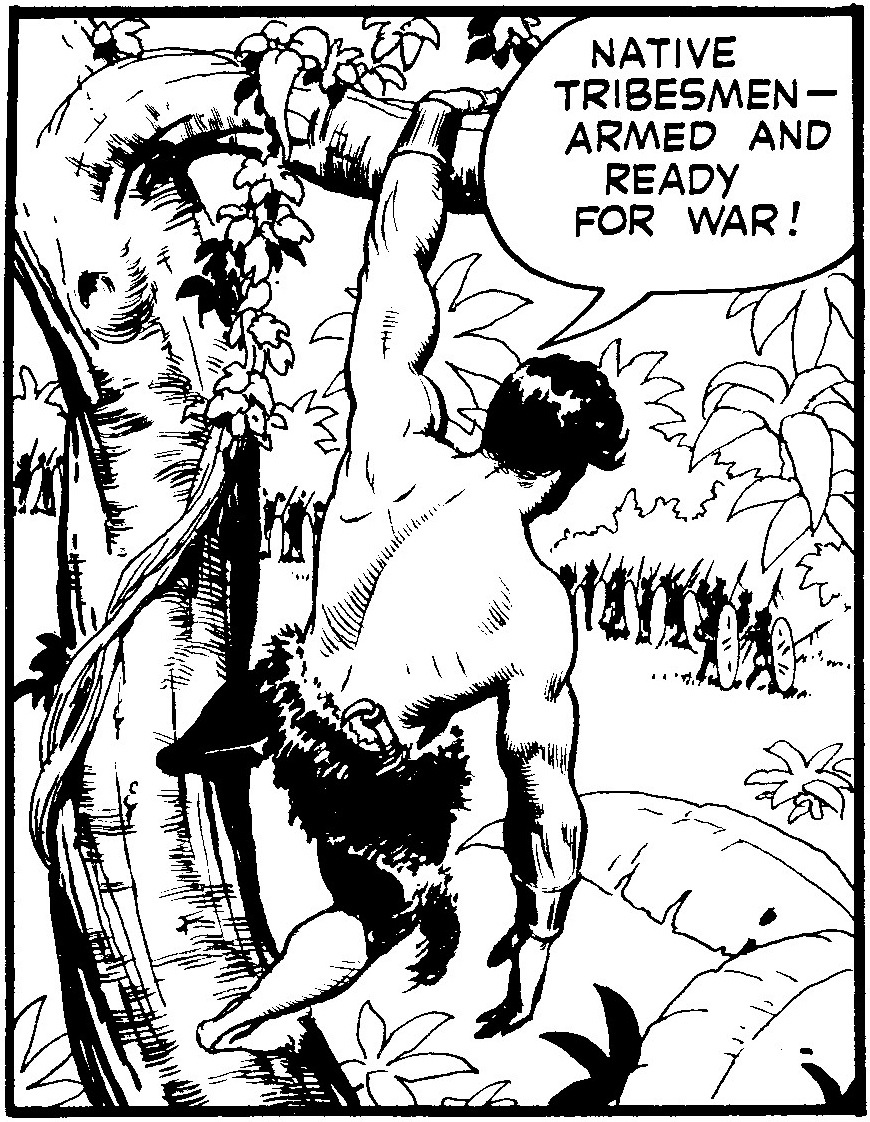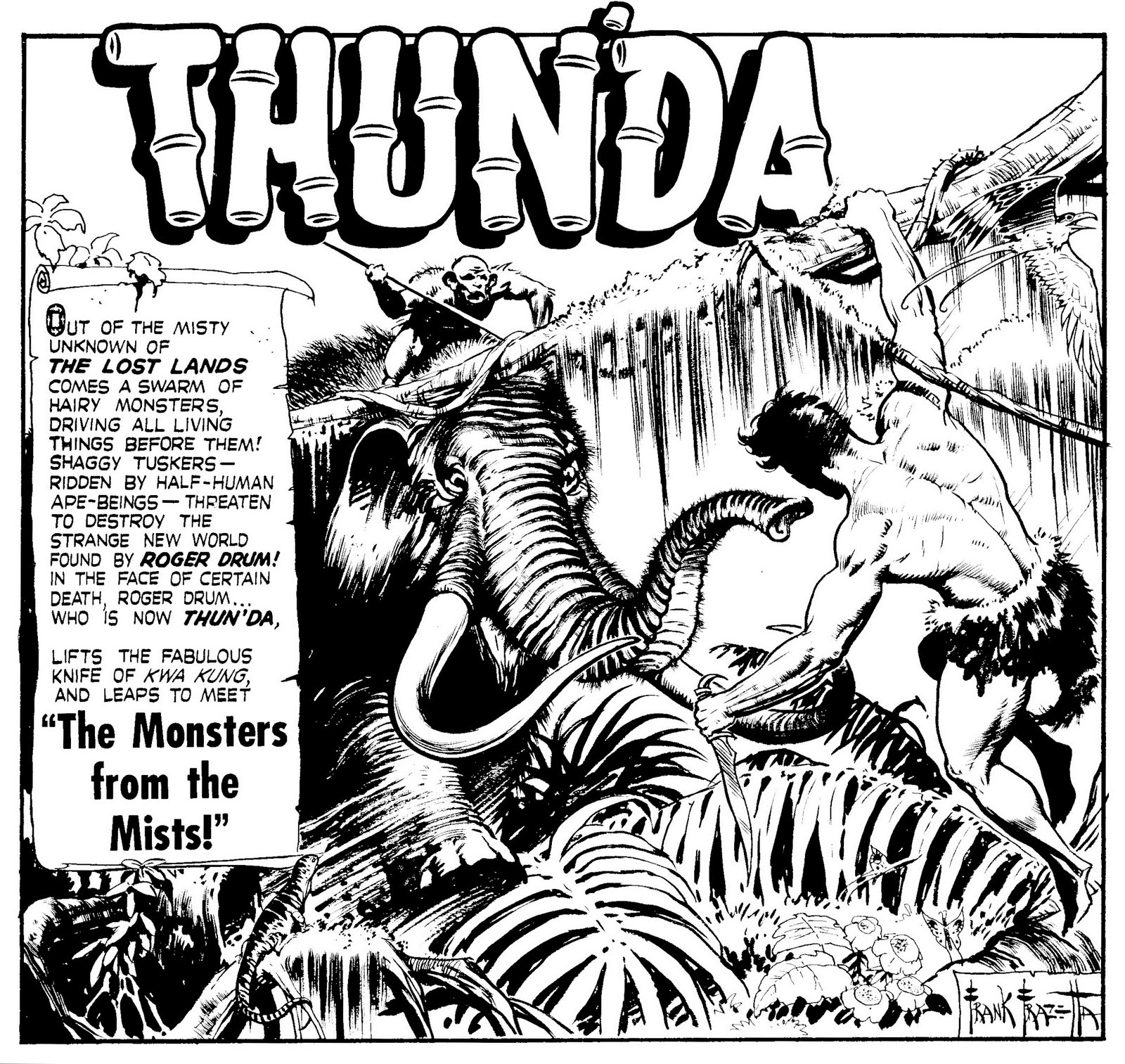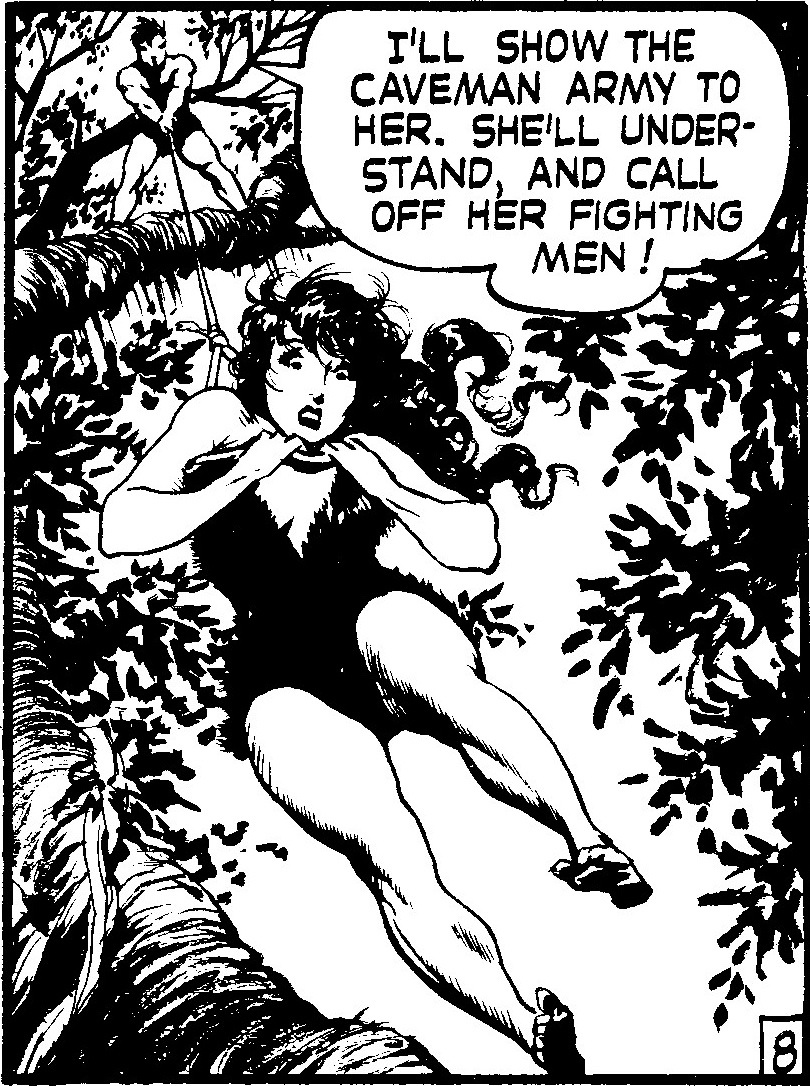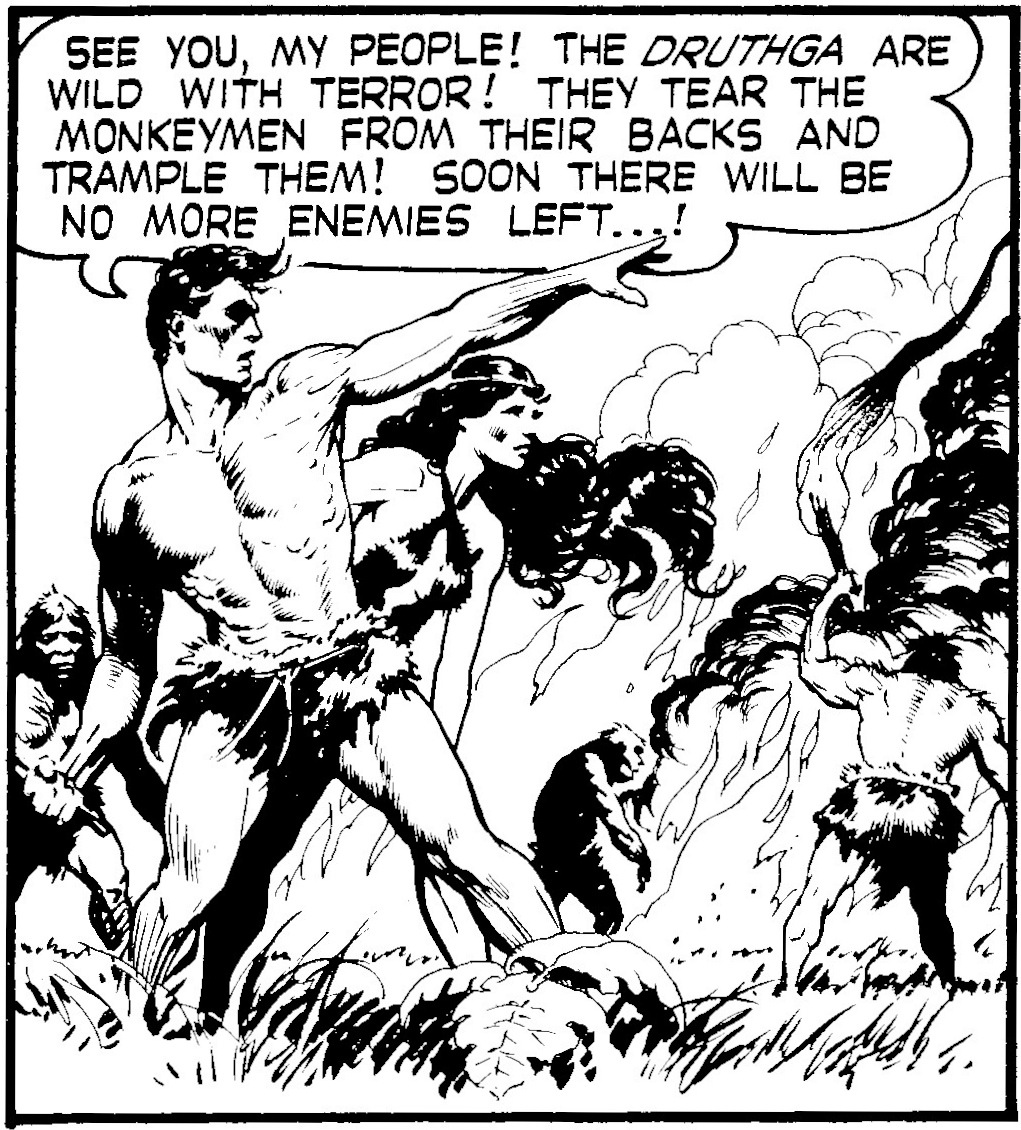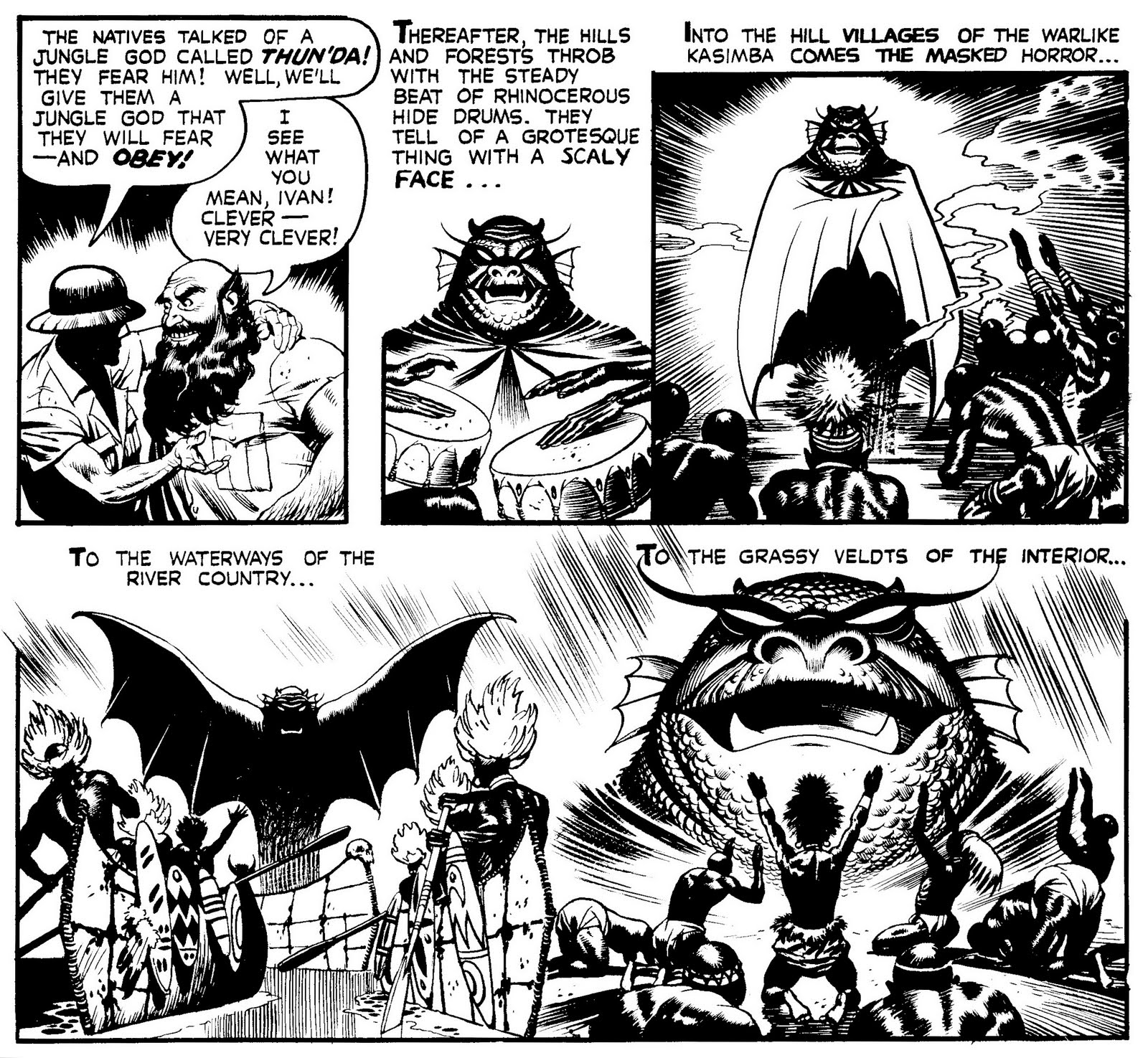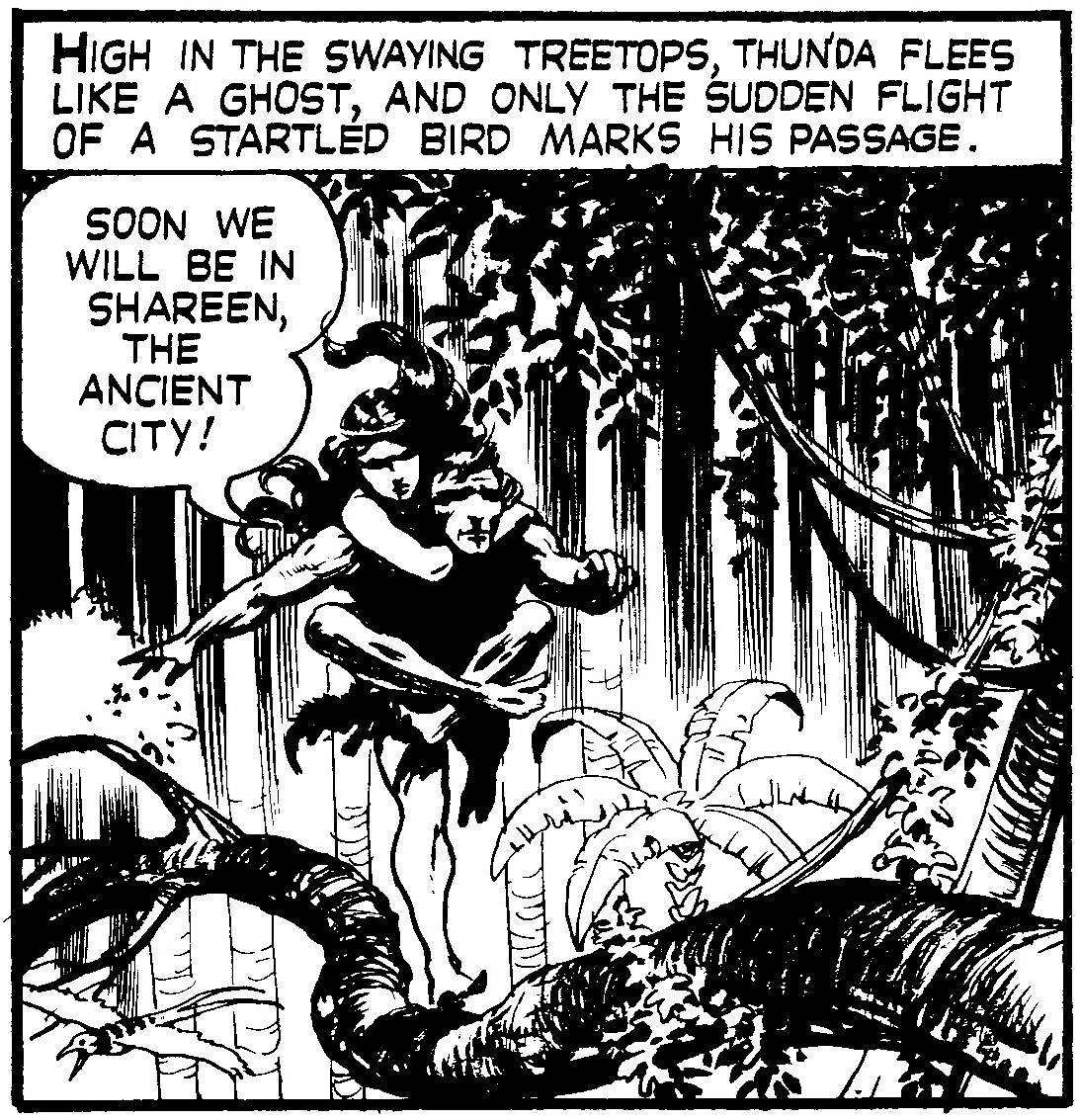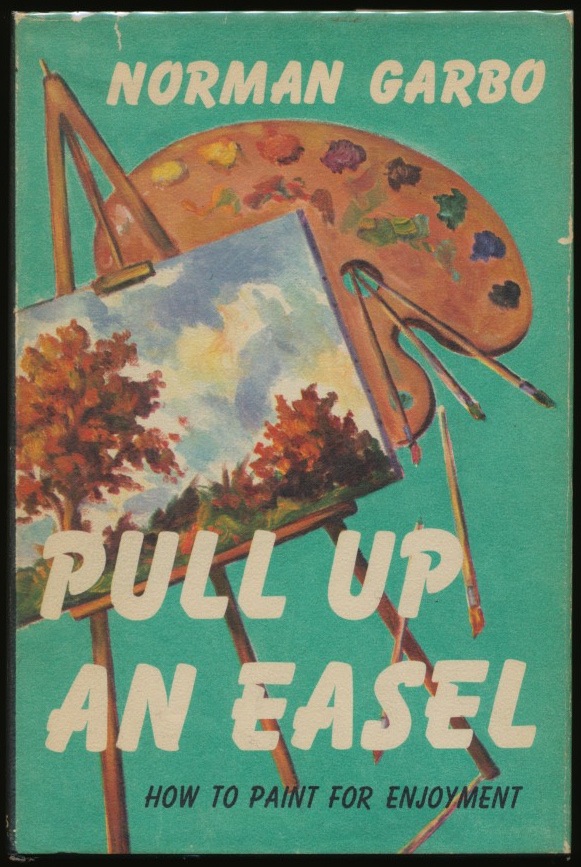
Creator: Reed Crandall
The story of how Reed Crandall was able to attend the Cleveland School of Art is told in the following article from The Santa Fe Magazine, August 1935.
Exceptional Newton, Kan., Art Student Wins High Honors in National Art Department Contest
By Vincent C. Root
Master Mechanic’s Office, Newton, Kan.
Newton, and all Kansas, in fact, should be mighty proud of one of its studious and artistic sons, Reed Crandall, senior in the Newton high school, who recently won six separate awards in a contest sponsored by the Scholastic, a weekly high school magazine. Crandall being the only student this year out of a group of 10,000 to win honors from all the states west of the Mississippi. So far as is known, Crandall is the only student from Kansas to have ever won distinction in this yearly contest in art.
Newton, enrolling only in one department of the contest—the art department—entered six different groups of the work of Crandall, 18 years old, and emerged from the contest very much a winner.
Crandall entered three pieces of sculpture in plastic wood. One of these, which won for him second place, was a model of a newsboy selling his papers. His second entry was a plastic wood model of a runner, and the third was a model of a pirate, depicting Long John Silver of Treasure Island. In addition to winning the high honors in plastic wood modeling, this young artist won a cash prize in oil painting and three places of honorable mention in pictorial arts division, black inks division and the oils division. Not only did his individual pieces win distinction but his group as a whole was outstanding in the pictorial arts division, also winning honors in this department.
This honor won by Reed Crandall is even more impressive when one considers that half a million high school students during the past year have turned their efforts toward winning these honors, and of this vast number only 10,000 survived the preliminary eliminations, which were conducted in their individual cities by judges selected from the teaching staff.
The jury, consisting of Audrey Avinoff, director of Carnegie Museum; Royal B. Farnum, director of the Rhode Island School of Design; C. Valentine Kirby, director of art in Pennsylvania schools; Alfred Pelikan, director of Milwaukee Art Institute; W.A. Readio, chairman, department of painting and design, Carnegie Institute of Techology [sic], and Dudley Crafts Watson, Chicago Art Institute. This group distributed eighteen scholarships and 215 prizes to excelling students scattered widely over the entire United States.
The work of Crandall now is at the International High School Art Exhibit in the Fine Arts Galleries of Carnegie Institute, Pittsburgh, Pa., the American division of which is made up entirely of work submitted for the scholastic awards. Seven nations are represented in this show, which will be released for a tour of the entire country upon completion of its engagement at Carnegie.
The main award won by Crandall for his exhibit is a scholarship in the Cleveland School of Art, beginning next September, which he is planning to enter next fall.
Reed is an exceptional student in school, and in addition to excelling in art is a prize pupil in typewriting, having recently won distinction by typing for ten minutes without making a single mistake. Miss Marie Orr, art instructor in our Newton schools, has been Reed's only instructor, and she is past president and past secretary of the State Art Teachers’ Association, which organization she was very active in bringing into existence.
Miss Orr has been active in Newton schools for the past fifteen years, having been art instructor during this long period, and due to her outstanding ability she has turned out of our Newton schools many very brilliant students of art as well as winning for herself high acclaim in this field and taking part in the various organizations for the advancement of art in this state.
Crandall is a cousin of Harrison Crandall of Boise and Jackson Hole, Idaho, who is nationally known as painter of Tetone mountain country scenes. His parents are Mr. and Mrs. Rayburn Crandall of Newton. Newton is mighty proud of Reed and we trust all Kansas is equally proud of him for bringing high honors in art to our city and state, and we wish him the greatest measure of success in his profession in the years to come.
(Crandall’s birthday is February 22. Below are links to additional information about Crandall and images of his work. Next post on Monday)
Anatomy of a Logo: Spirits of Vengeance: Ghost Rider/Blaze
The movie Ghost Rider: Spirit of Vengeance opens February 17. The title is based on the comic bookSpirits of Vengeance: Ghost Rider / Blaze, published by Marvel Comics. Bobbie Chase was the editor of the comic and related titles. Spirits of Vengeance #1 was part two of "Rise of the Midnight Sons" a six-part crossover with these titles: Ghost Rider #28, Part 1; Morbius #1, Part 3; Darkhold #1, Part 4; Nightstalkers#1, Part 5; and Ghost Rider #31, Part 6. I was designed with the crossover title, Rise of the Midnight Sons, and the logos except for Ghost Rider.
On August 19, 1991, I met with Bobbie and she offered the logos to me. On September 6, my initial Spirits of Vengeance designs were rejected. Bobbie suggested a more fluid approach, like brushstrokes.
On September 15, I used a crayon pencil to rough out "Ghost Rider/Blaze" and "Spirits of Vengeance".
Then I used a felt-tip marker to draw the letters.
An outline version was made.
I combined the two groups into the logo. On September 16, I faxed the revised logo to Bobbie and she approved it.
About a week later, I enlarged the photocopy then added some guide lines. The photocopy was taped to a light box and a sheet of LetraMax 2000 was placed on top of it.
I used a variety of Rapidograph pens to ink the letters. Also used were a french curve and ellipse guides. The flames and outline were inked freehand. The finished art was delivered September 23.
Logo measures 7.875 by 14.5 inches / 20 by 36.8 centimeters
The comic book was released in Spring 1992. What I saw wasn't the logo I had drawn. A decision was made to redo my logo so it resembled the the Ghost Rider logo. The basic design of my logo was used, but the "S" was widen and its top stroke enlarged and extended so "Ghost Rider & Blaze" could fit inside. Then "of" was reduced and the vertical stroke of the "F" was separated from the vertical stroke of the "N". Despite the changes, the logo worked very well.
(Next post Monday: Reed Crandall)
Thursday, February 9, 2012
Street Scene: Frank Frazetta's High School
• N E W Y O R K C I T Y •
Abraham Lincoln High School
2800 Ocean Parkway, Brooklyn
Main entrance
Plaque in entrance stairway
Brooklyn Daily Eagle,
December 11, 1944;
see sub-head,
“Something Modern”
Frank Frazetta was born on February 9, 1928. Part one of Armand Eisen’s interview with Frazetta was published in Ariel magazine, Autumn 1976. When asked the question, Was there any single art teacher whom you particularly admired or became close to or who influenced you?, Frazetta answered:
There was one outstanding man who really, really gave me incentive. He seemed to know how to get to me. Others had just the opposite approach. They felt, keep him down so he will fight and strive for better things. Right? His attitude was, tell him he’s great—in other words, make him happy and he will perform. And that really worked with me, in art. And you get those who try to push you down, and you come up just to show them—and they say “He’s great!” You are trying to show both sides that you are great. Whether it is in sports or in art, you’ve got to convince the non-believers and confirm the believers. That sort of thing. It is a marvelous feeling. That is what life is all about.
...By the way, what was the name of that art teacher?
Grubman.
Where did he teach?
He taught in Abraham Lincoln High School.
And how old were you when he was your teacher?
I was in my teens, oh, 15 or 16. He was very encouraging. You know, he just made me feel important.
Do you think that had any influence at all on your work?
Well, no influence on my work, none whatsoever. It was simply that I was going my way no matter who came along and he simply made my life more pleasant and just reaffirmed what was in my own heart, that I was good. I had it.
••••••••
A copy of Frazetta’s high school transcript is here.
••••••••
Paul Grubman was born in Brooklyn, New York on August 11, 1898, according to the Social Security Death Index. In the 1900 U.S. Federal Census, he was the youngest of eight children born to Joseph and Flora, both Russian emigrants. They lived in Brooklyn at 24 Osborn. His father was a machinist.
In the 1910 census, Grubman, his parents and three siblings lived in Brooklyn at 1623 Eastern Parkway. His father was an optician. He graduated from Manual Training High School on June 28, 1917, as reported in the Brooklyn Daily Eagle on June 29. He signed his World War I draft card on September 10, 1918. He lived at 1672 Union Street in Brooklyn and worked as a machine helper.
Grubman has not been found in the 1920 census. The Eagle reported, on September 26, 1922, that he was licensed to teach textile design at the evening high schools. He lived in Belle Harbor, Long Island at 238 North 132 Street.
Brooklyn Daily Eagle,
September 26, 1922;
see last two lines.
He has not been found in the 1930 census. In July 1933 he was licensed to teach freehand drawing in high school, according to the Eagle, July 1, 1933. On November 27, 1934, the Eagle reported his appointment to Abraham Lincoln High School; he had been a substitute teacher.
Brooklyn Daily Eagle,
July 1, 1933
Brooklyn Daily Eagle,
November 27, 1934
Grubman passed away in May 1984 in Brooklyn, according to the Social Security Death Index. He was buried on June 4 in Green-Wood Cemetery.
(Frazetta's baseball days; Street Scene post on Monday)
Tuesday, February 7, 2012
Street Scene: The Charles Dickens House Museum
• L O N D O N •
48 Doughty Street (link)
February 7, 2012 is the 200th birthday of Charles Dickens.
(Next post on Thursday: Frank Frazetta's High School)
Monday, February 6, 2012
Creator: Hal Foster
Hal Foster's Influence on Frank Frazetta
Hal Foster's Tarzan daily comic strips, from January and February 1929, were reprinted as a book, The Illustrated Tarzan Book #1, published by Grosset & Dunlap in 1929. The book can be viewed at Golden Age Comic Book Stories. Frank Frazetta's art was in the first issue of Thun'da, King of the Congo, which was published in 1952.
Select panels from Tarzan and Prince Valiant are followed by panels from either Thun'da or Frazetta book covers. The panels show either similar compositions or concepts.
HANGING ON A BRANCH
Tarzan, daily 30
Tarzan and the Lost Empire
Thun'da, Gods of the Jungle, page 6
Tarzan, daily 21
Tarzan, daily 26
Tarzan, daily 43
Thun'da, Monsters from the Mists, page 1
Tarzan, daily 37
Thun'da, King of the Lost Lands, page 6
WALKING ON A BRANCH
Tarzan, daily 37
Thun'da, Monsters from the Mists, page 6
POINTING
Tarzan, daily 25
Tarzan, daily 47
Thun'da, Monsters from the Mists, page 7
LASSOED
Tarzan, daily 26
Thun'da, King of the Lost Lands, page 8
FIGHTING AN ANIMAL
Tarzan, daily 44
Thun'da, Monsters from the Mists, page 5
Tarzan, daily 25
Tarzan at the Earth's Core
MONSTER
Prince Valiant, December 25, 1937
Thun'da, Gods of the Jungle, page 5
(Frazetta's high school; next post on Tuesday: Charles Dickens)
Saturday, February 4, 2012
Street Scene: 85 Court Street
• N E W Y O R K C I T Y •
85 Court Street, Brooklyn
The location of Michele Falanga's
Brooklyn Academy of Fine Arts.
Building on the left is number 85. (January 2012)
Advertisements of previous tenants at 85 Court Street.
Brooklyn Daily Eagle, April 28, 1901
Brooklyn Daily Eagle, April 18, 1921
Brooklyn Daily Eagle, October 29, 1922.
Broad side of the building faces Livingston Street,
while the narrow side, the entrance, faces Court
Street. The building is number 81. (January 2012)
Brooklyn Daily Eagle, November 30, 1923
Brooklyn Daily Eagle, August 15, 1924
Il Carroccio, February 1935
Friday, February 3, 2012
Creator: Brooklyn Academy of Fine Arts Students
Frank Frazetta was one of many Brooklyn Academy of Fine Arts students who studied with Michele Falanga and made a name for themselves; among the illustrious alumni were Italo Botti (1923-2003), William Ehrig (1892-1969), Albert Pucci (1920-2005; Frazetta's classmate), Lily Shuff (1906-2002) and Louis Wolchonok (1898-1973); Norman Garbo (1919-) resides in Long Island, New York.
Portsmouth Herald, April 7, 1969
Aberdeen American News, October 12, 1967
Who's Who in American Art: 1989-90
Design for Artists and Crafsman, 1953
Pull Up an Easel, 1955
Compilation of syndicated newspaper columns